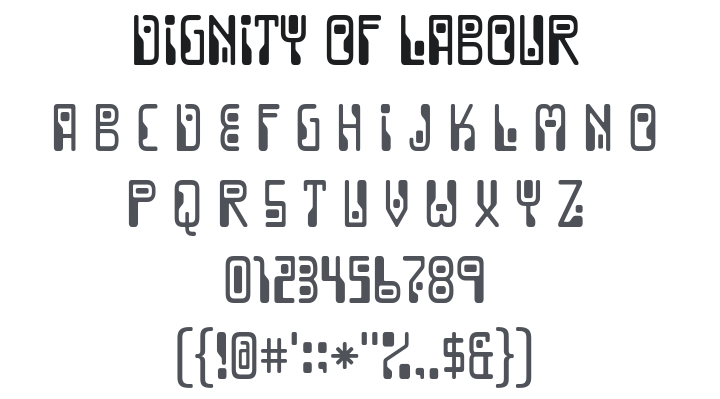
Dignity of Labour Font
About Dignity of Labour
Dignity of Labour is a bombastic over-the-top parody of late-1960s computer-oriented typefaces — narrow, tall letterforms built from parallel lines that create a glitchy, magnetic-ink aesthetic pushed to absurd extremes. It radiates authentic Y2K sci-fi nostalgia with a self-aware wink. Perfect for retro-futuristic posters, sci-fi parody designs, tech-themed editorial headlines, and any project embracing vintage computer camp.